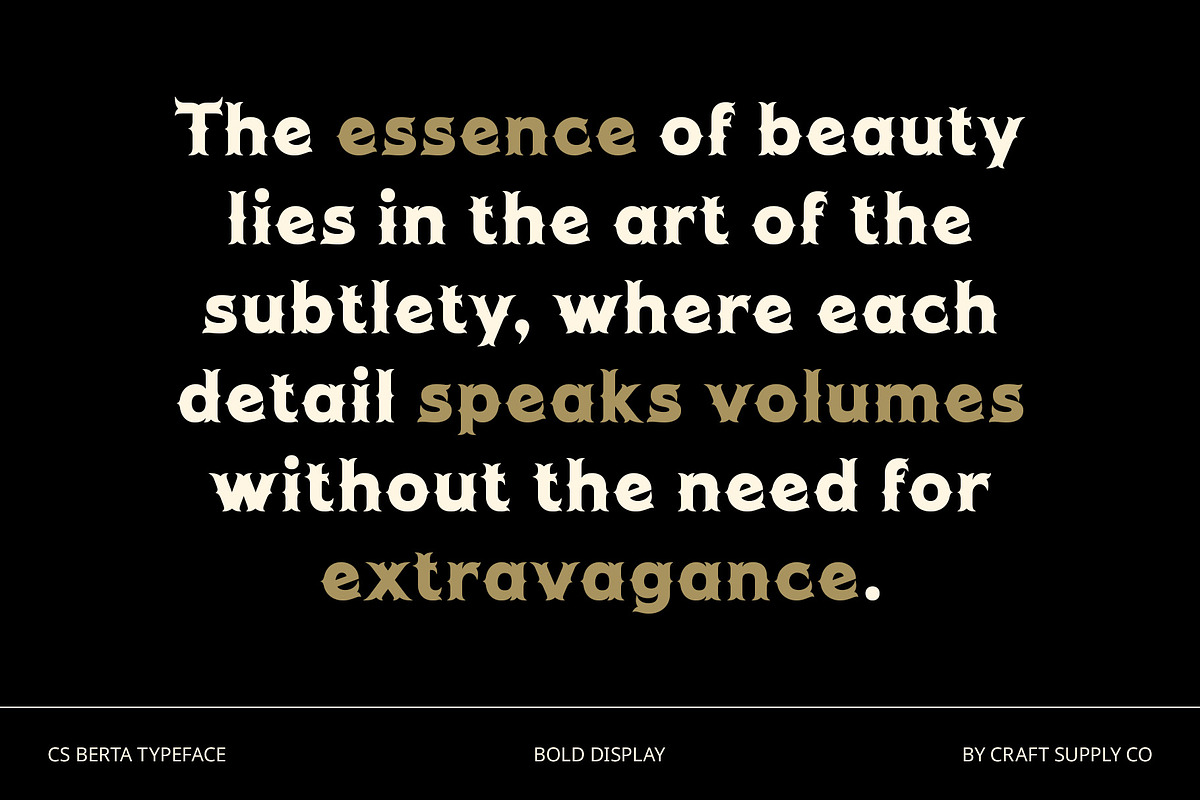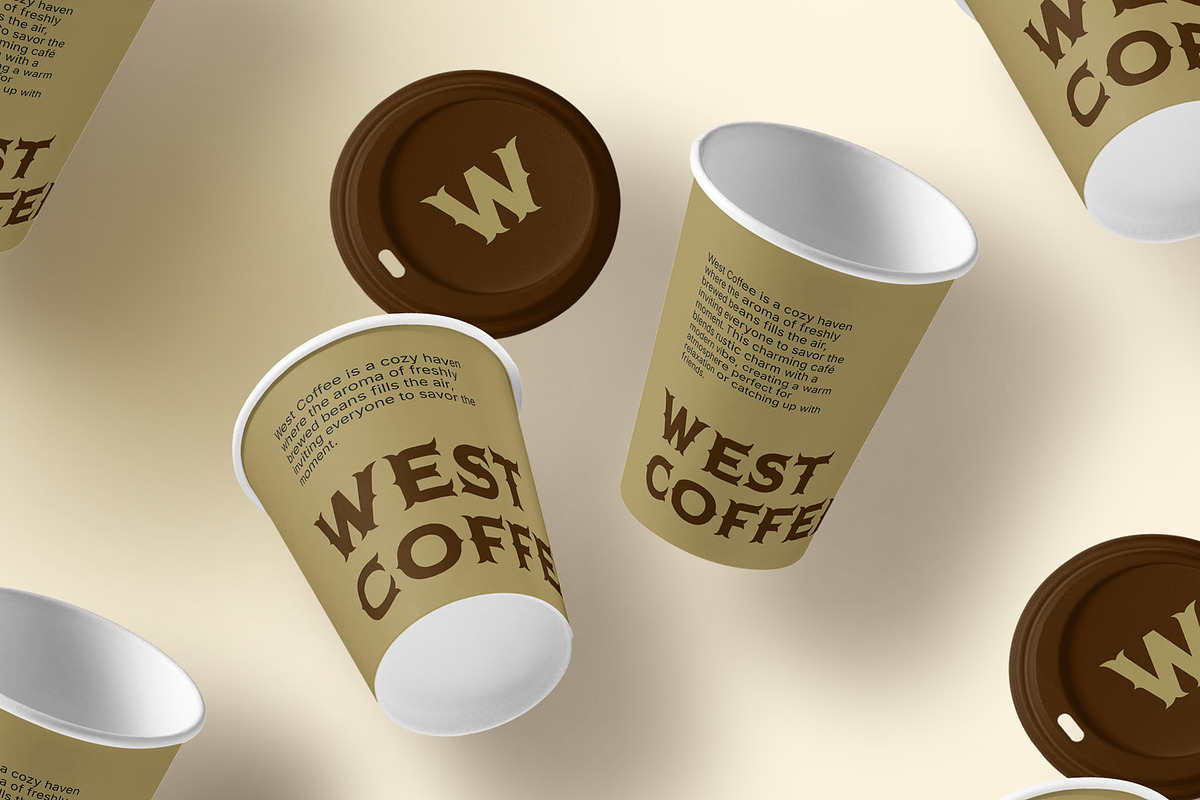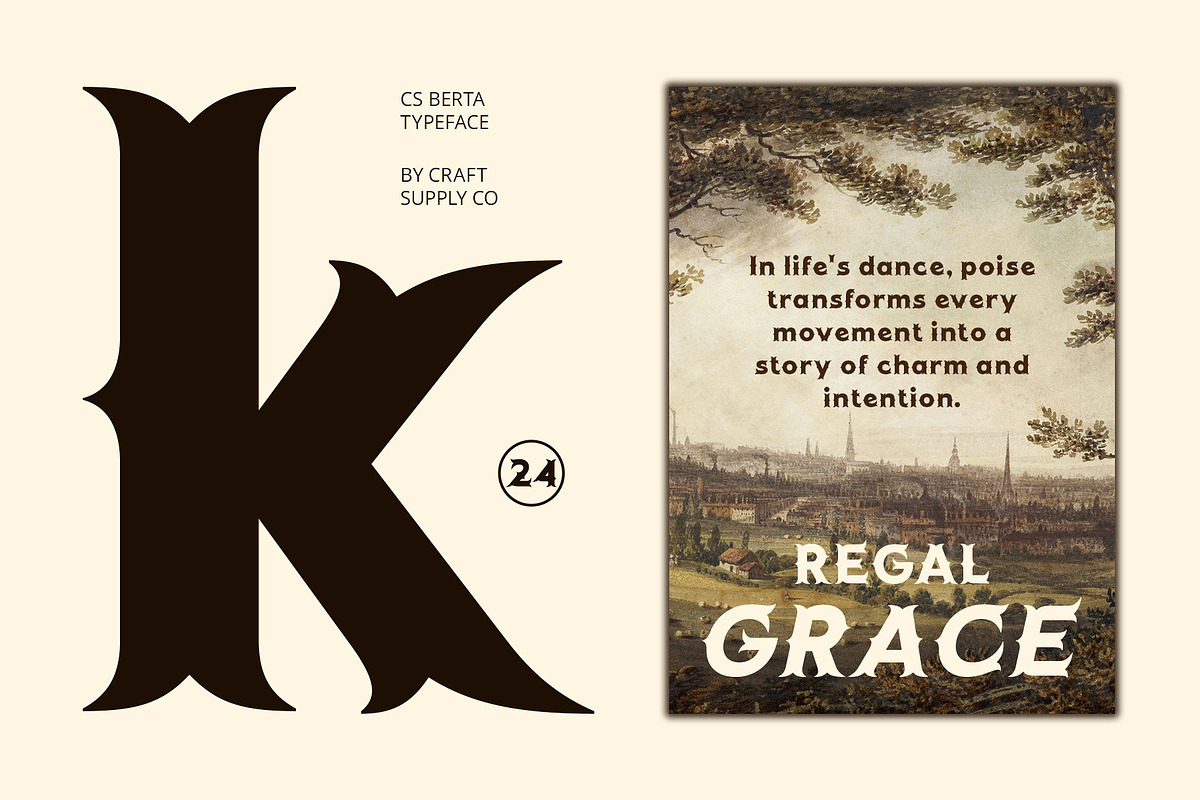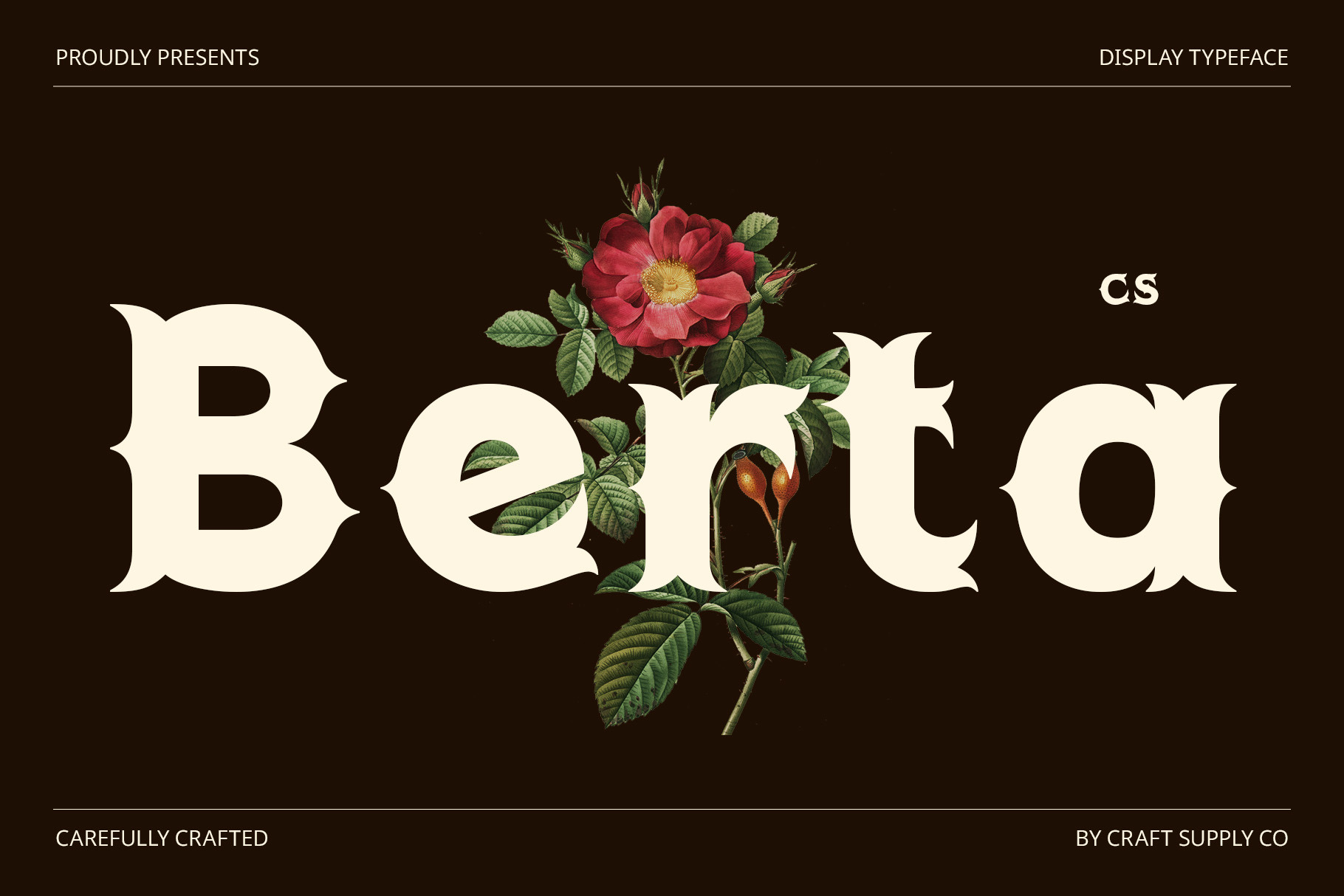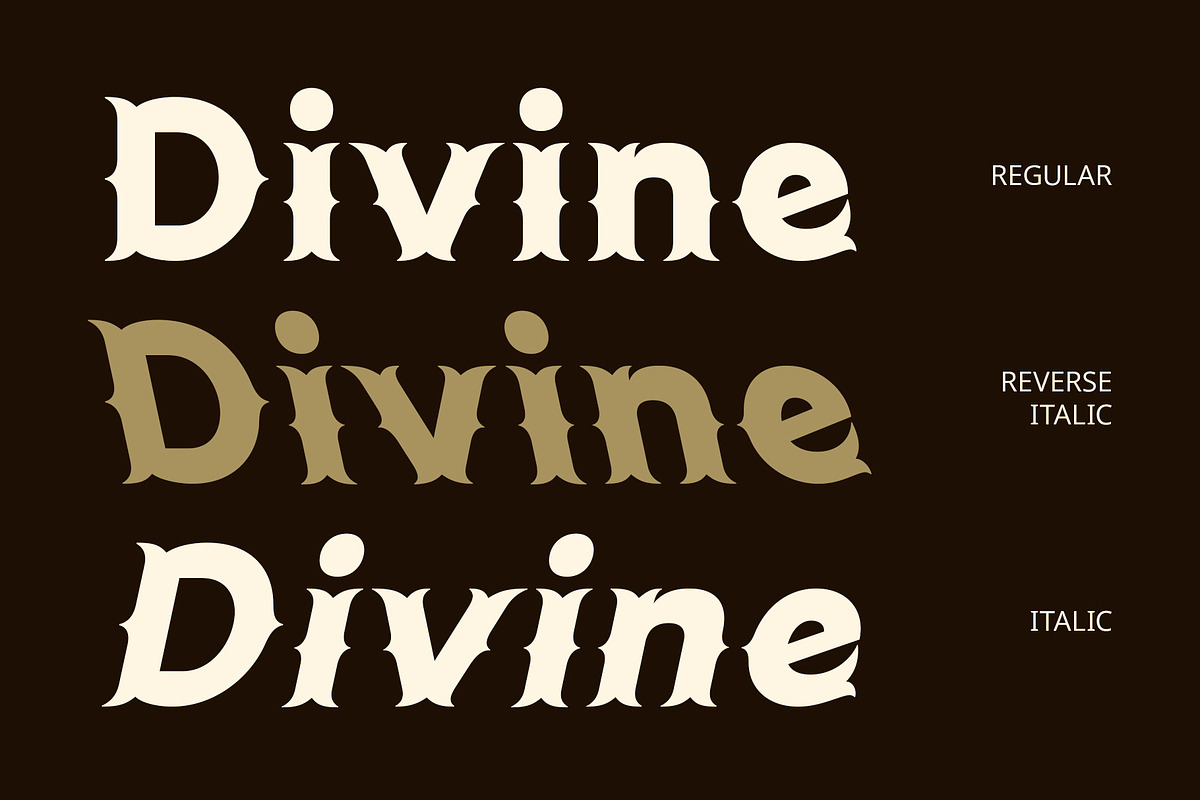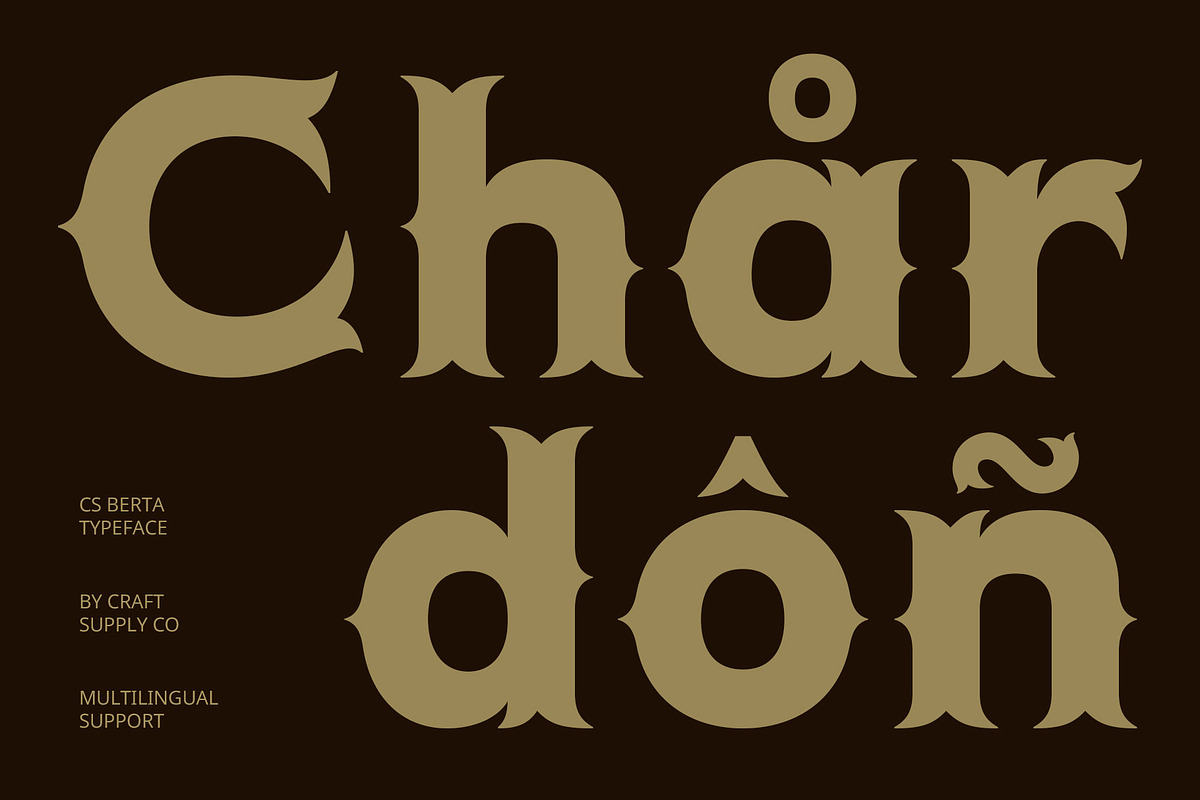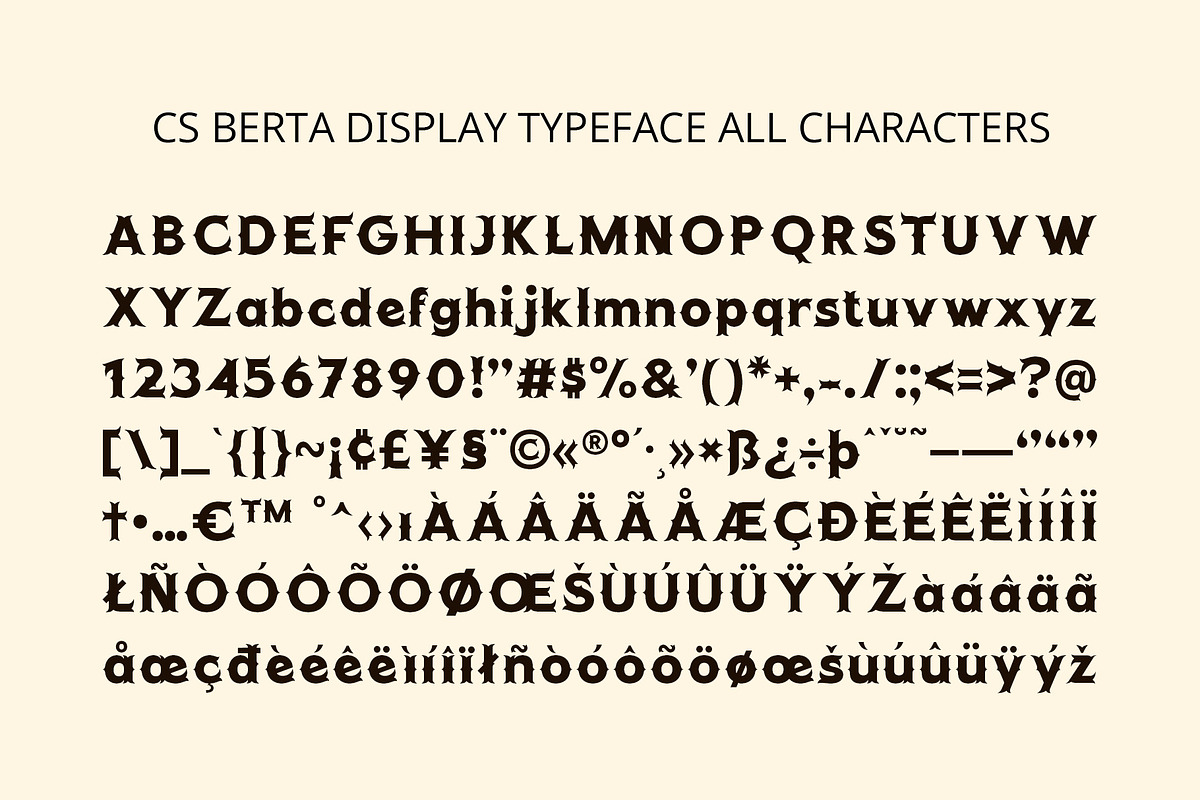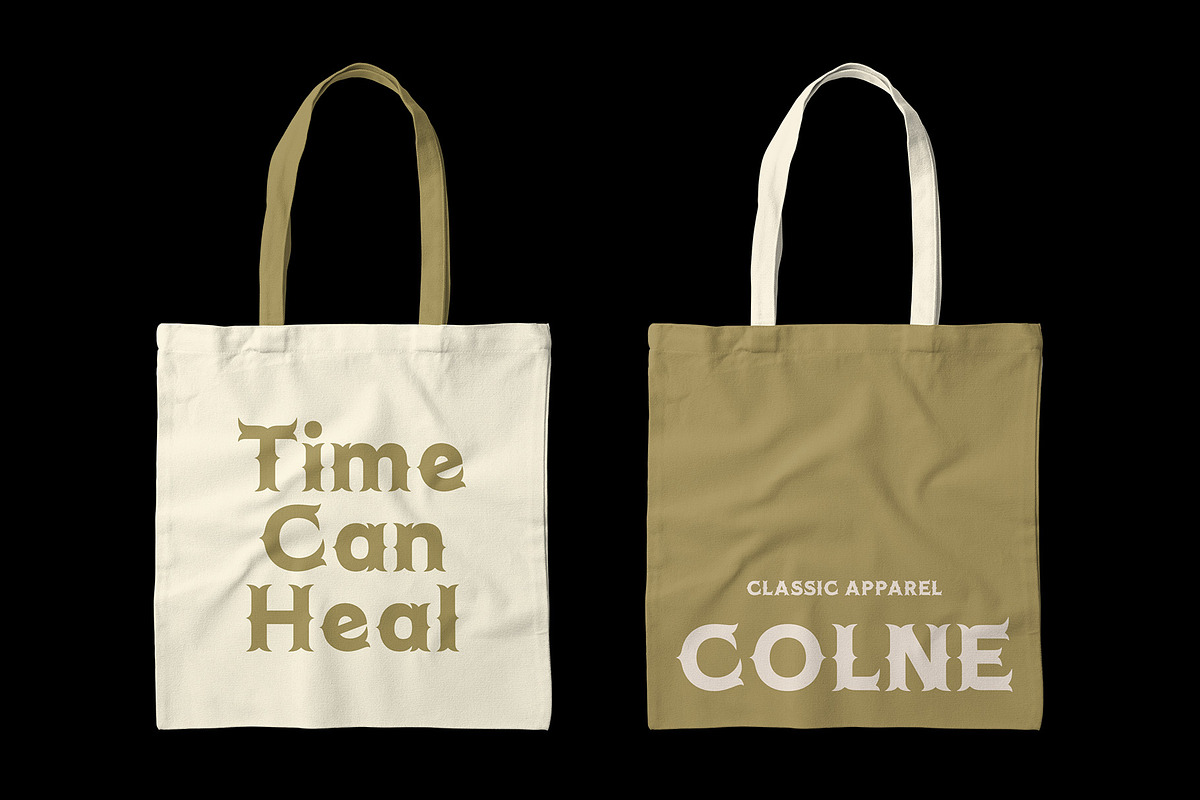
CS Berta – Tuscan Font
CS Berta – Tuscan Font: Bold, Vintage, and Retro Serif Style
Timeless Vintage Appeal with Bold Character
CS Berta is a striking display serif font in a classic Tuscan style, combining bold decorative serifs with intricate design elements. The font’s vintage and retro-inspired aesthetic is accentuated by sharp, pointed serifs and additional details like cross lines, giving it a dramatic and strong visual presence. Its distinctive, eye-catching look is perfect for projects that seek to convey a classic, old-school charm.
Nostalgic, Bold, and Eye-Catching
The Tuscan style of CS Berta evokes a sense of nostalgia, blending bold shapes with vintage elegance. The decorative serifs add flair, creating a font that stands out in headlines, logos, and posters. Its robust form and strong lines ensure it commands attention while maintaining an authentic retro vibe. This font is perfect for designs that want to emphasize a timeless, old-world appeal with a modern twist.
Perfect for Retro and Vintage-Themed Designs
CS Berta is ideal for branding, promotional material, and any project that benefits from a strong, vintage aesthetic. Whether you’re working on posters, logos, or creative artwork, this font delivers a distinctive style that is both bold and nostalgic. Its dramatic presence and retro flair make it a great choice for designs that aim to evoke the charm of the past while remaining visually relevant today.
- CS Berta Regular
- CS Berta Italic
- CS Berta Reverse Italic